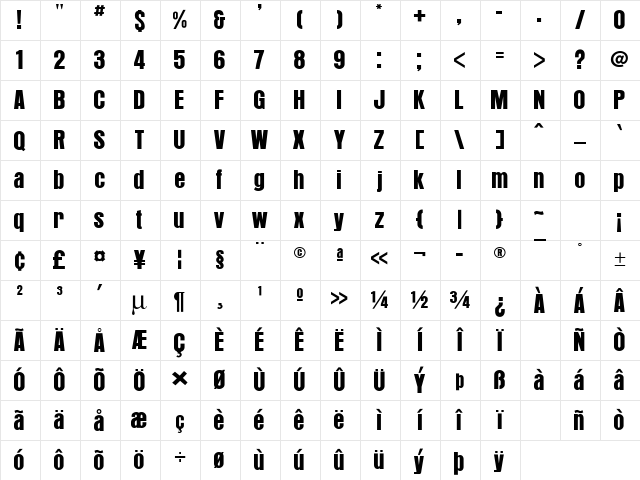
Arroyo Regular
Arroyo Family
Arroyo Regular
Design Context for Arroyo
Arroyo is a composed and adaptable typeface that performs quietly and consistently across a wide range of design contexts.
Pro Tip: Use Arroyo in both headline and body roles to test its range before committing to a single application.